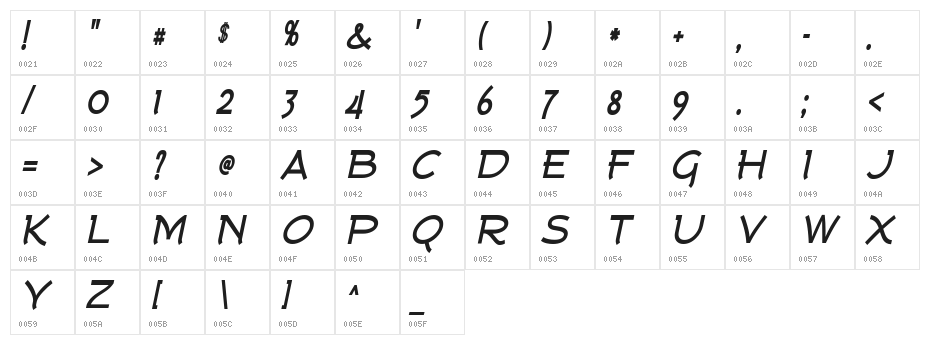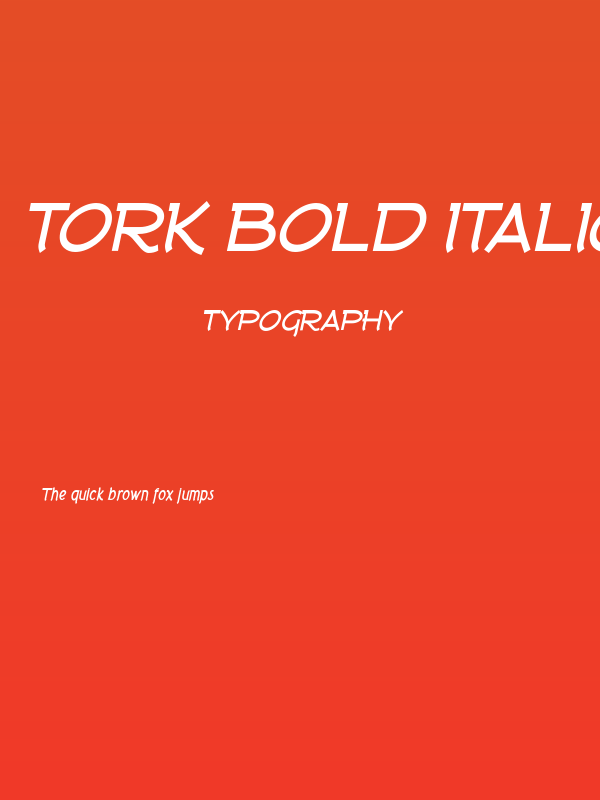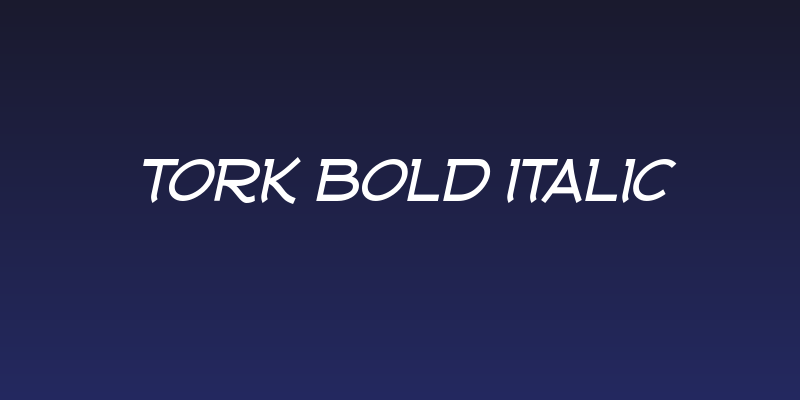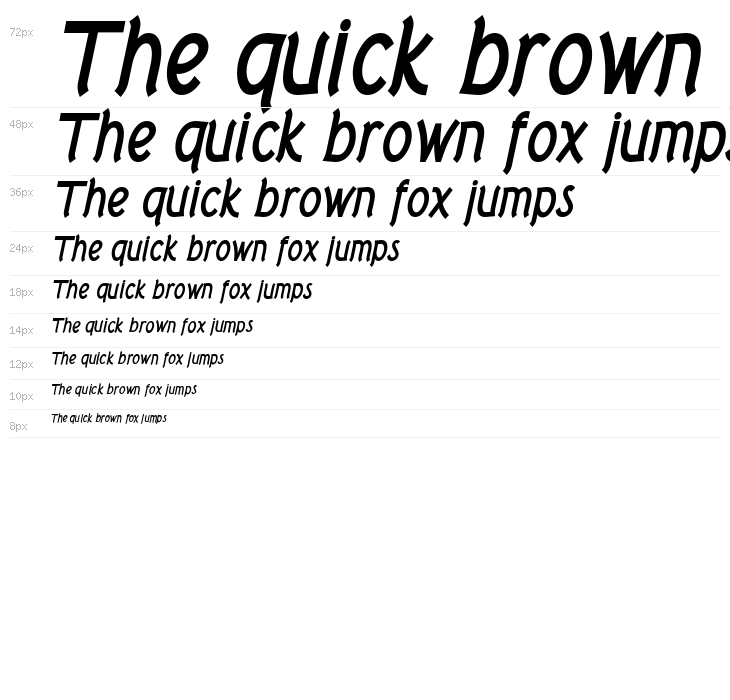
Tork Bold Italic Font
Tork Bold Italic Description
This font features a dynamic and energetic style with a bold and italicized appearance. The characters are slightly slanted, giving a sense of movement and urgency. The strokes are thick and consistent, providing a strong visual impact. The uppercase letters are tall and commanding, while the lowercase letters maintain a cohesive flow. Numbers and special characters are designed to complement the overall aesthetic, making them suitable for attention-grabbing designs.
Proposed ProjectsIdeal for sports branding, dynamic posters, and attention-grabbing headlines.